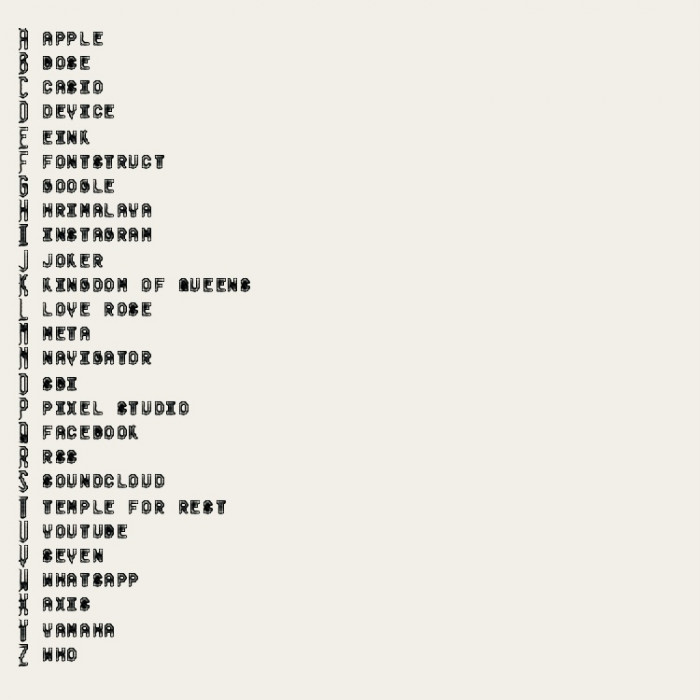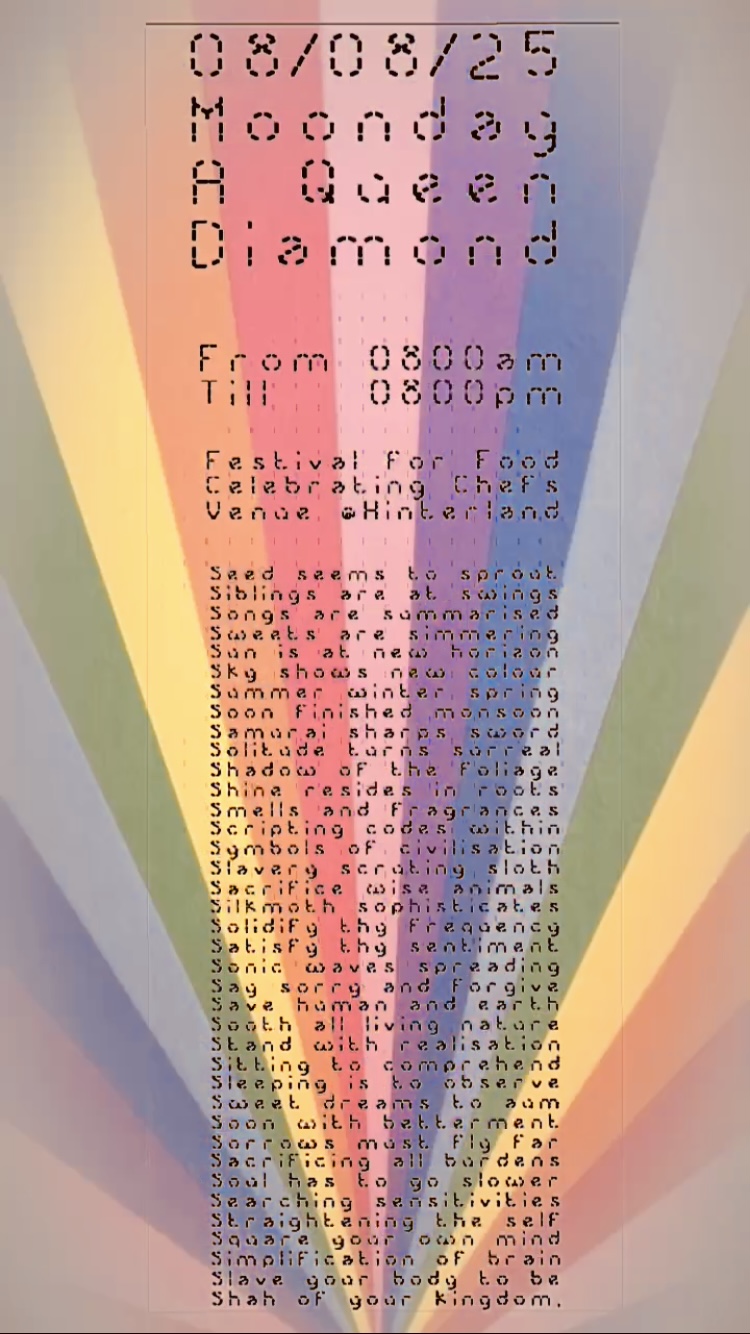
Are the filled textures in that last sample image composed of the geometric 42-segment grid pattern character that is in your font?
They are not part of the font yet.
Are the filled textures in that last sample image composed of the geometric 42-segment grid pattern character that is in your font?
They are not part of the font yet.